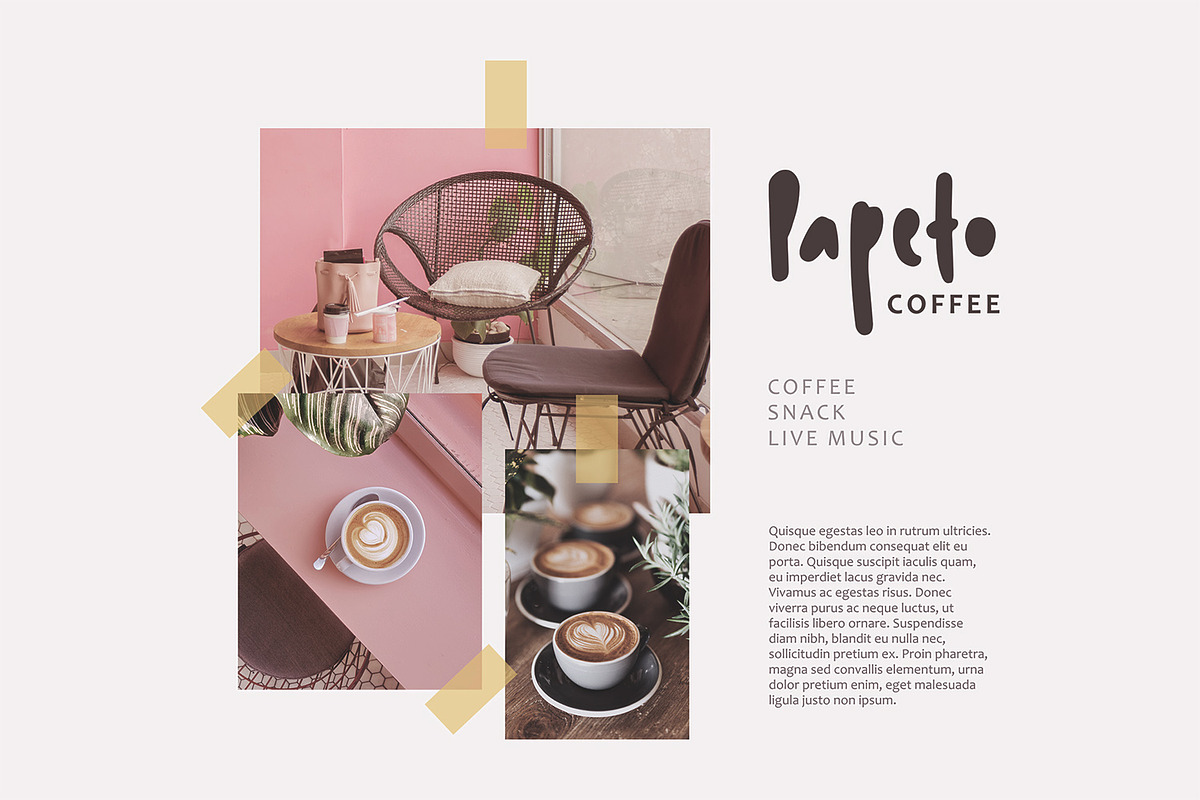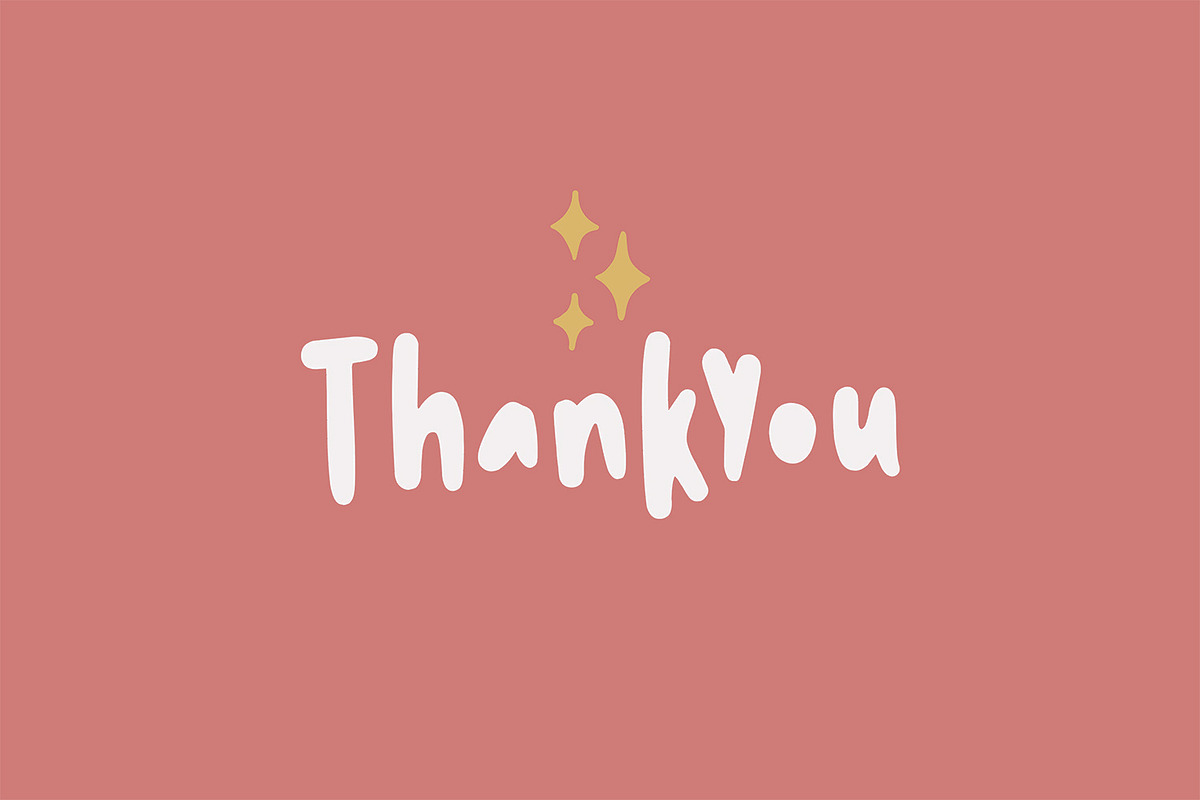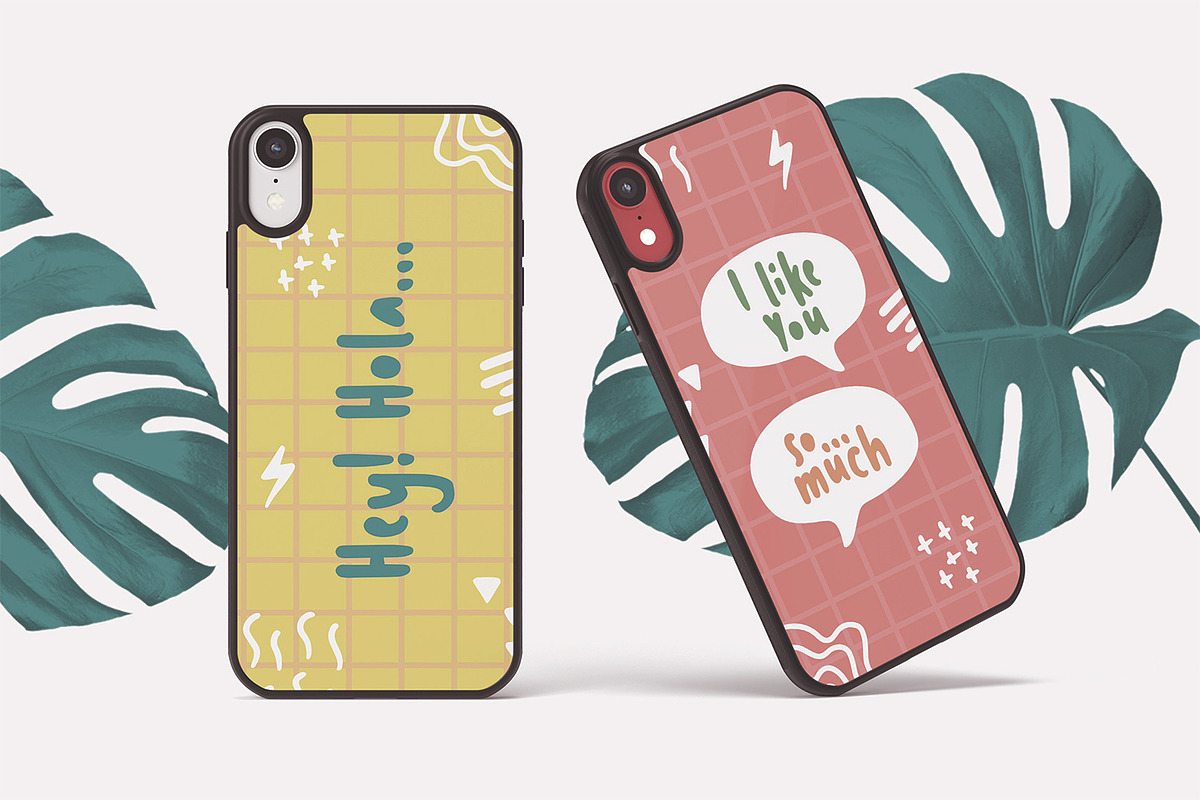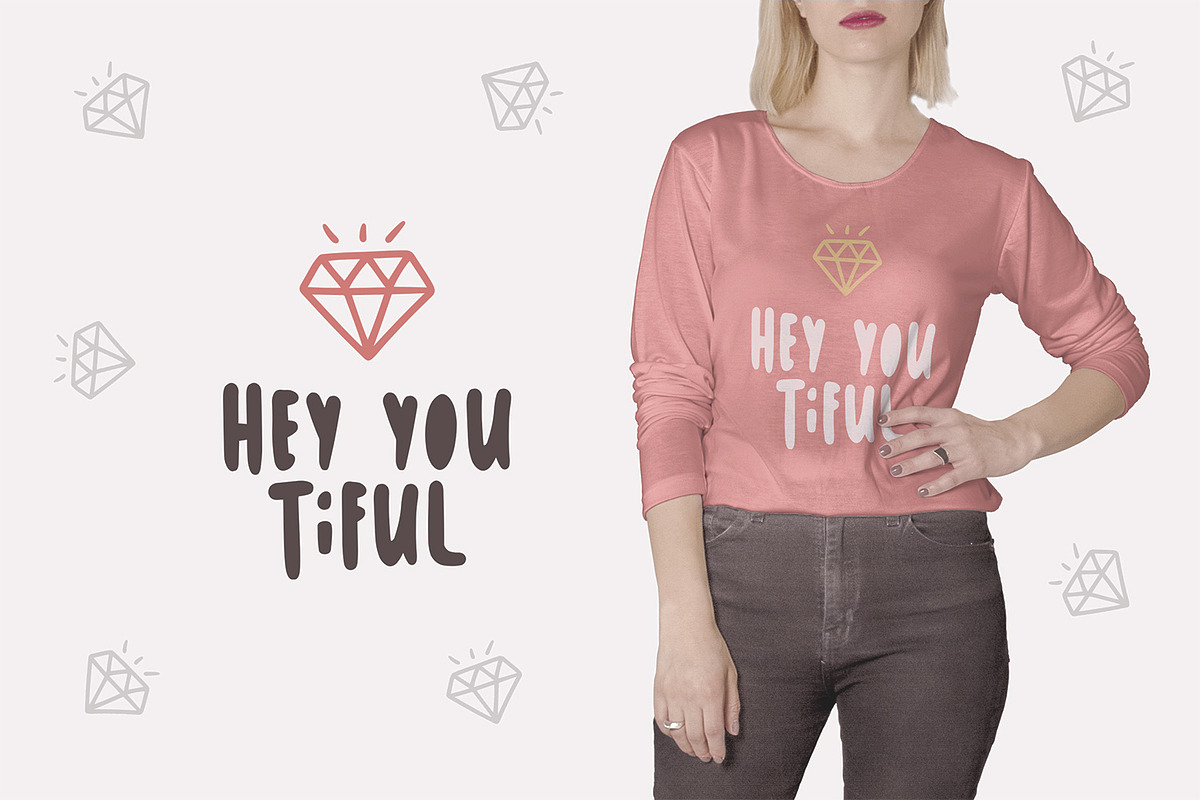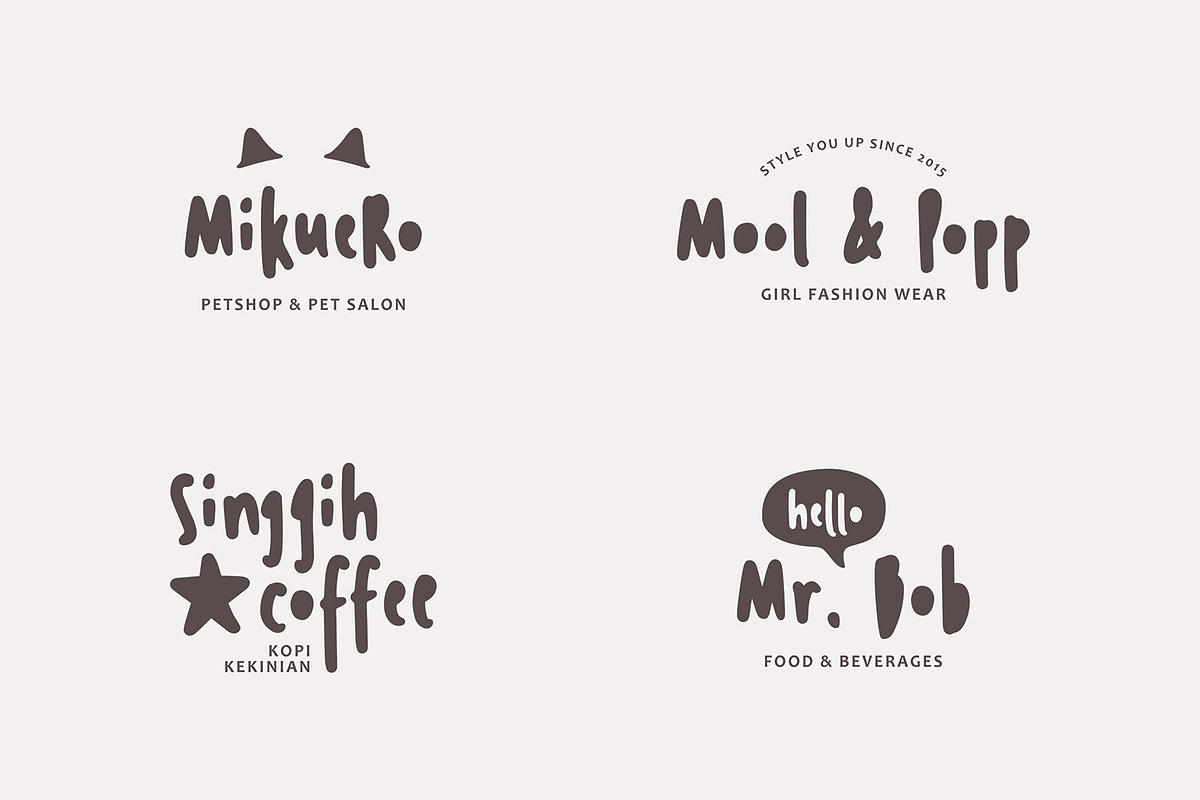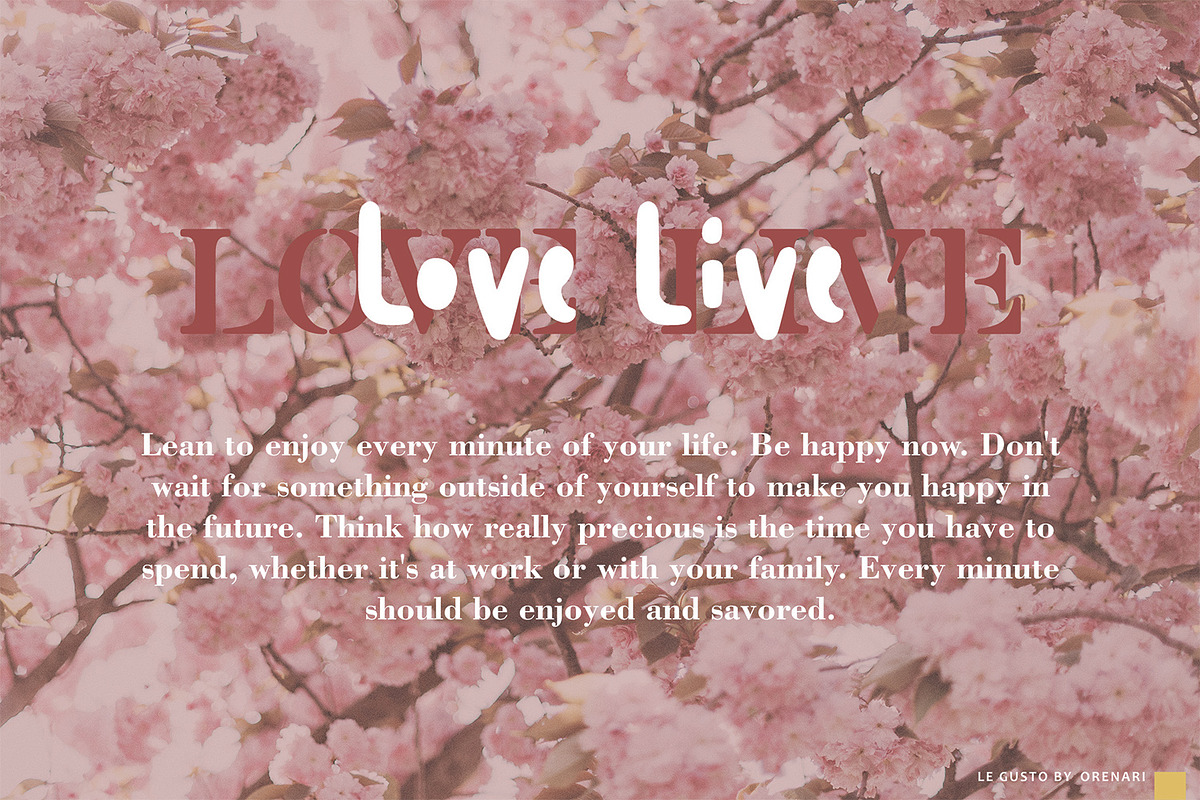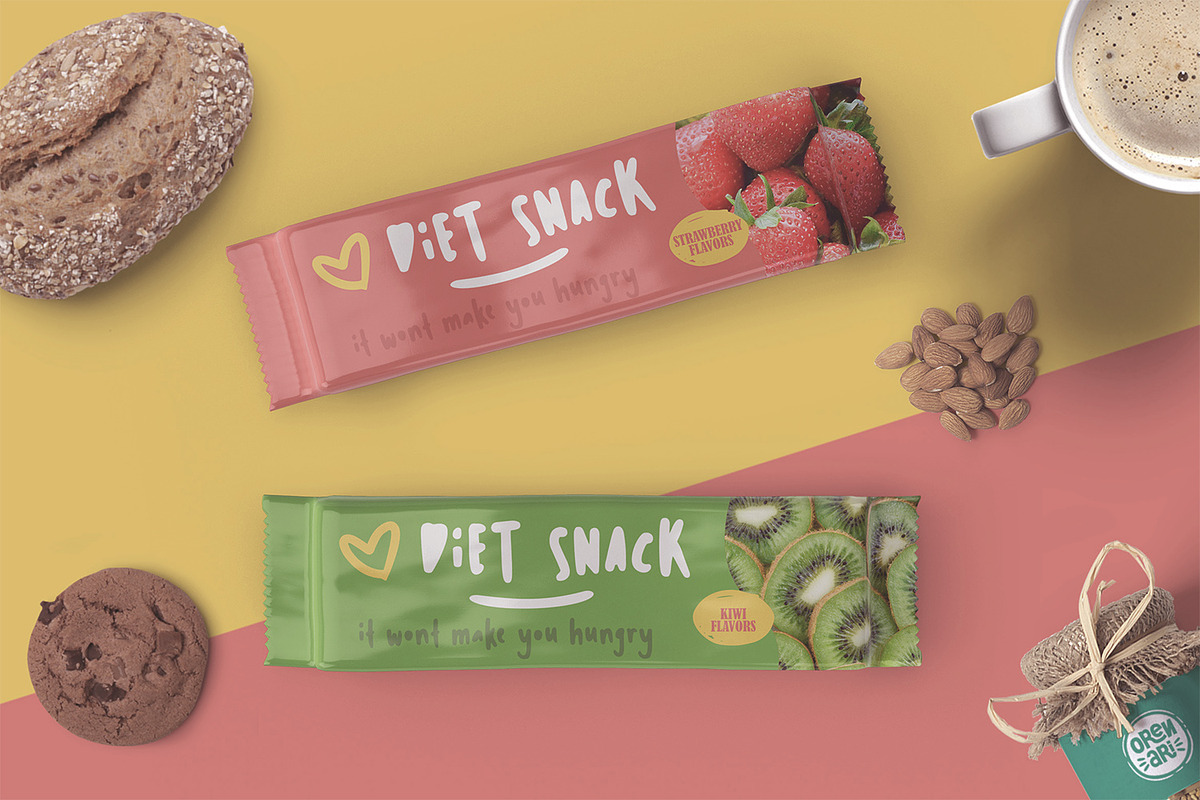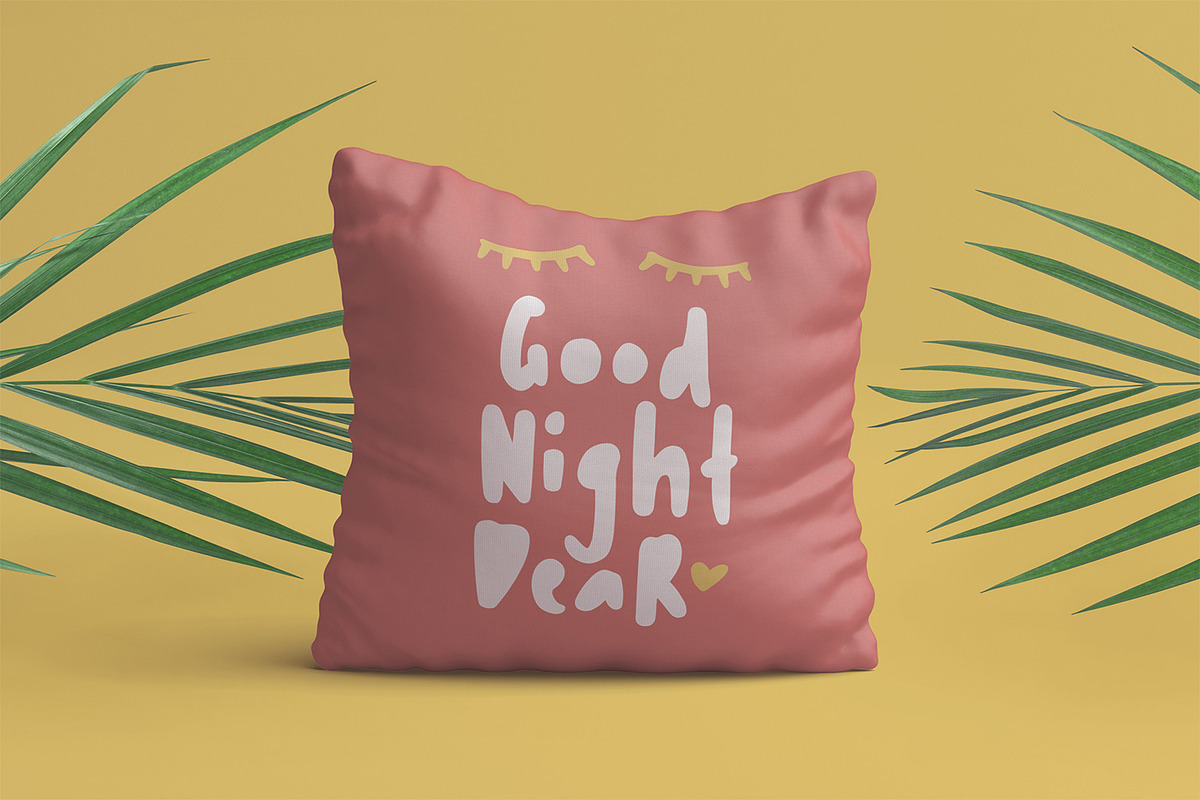
Hello! Hope you are doing well. Today was a good day to present you my new project, Le Gusto, an unique font for logo, heading, crafts, products, and many more.
IT'S A MUST HAVE FONT. Why?
Because Le Gusto is perfect for your unique projects, it's looks modern and fun. This font is 100% handwritten by my self and I put much love in each characters. Le Gusto is Mùltïlingûål Šüppórt. And, oh, it's also came with mini vector bonus. YAY.